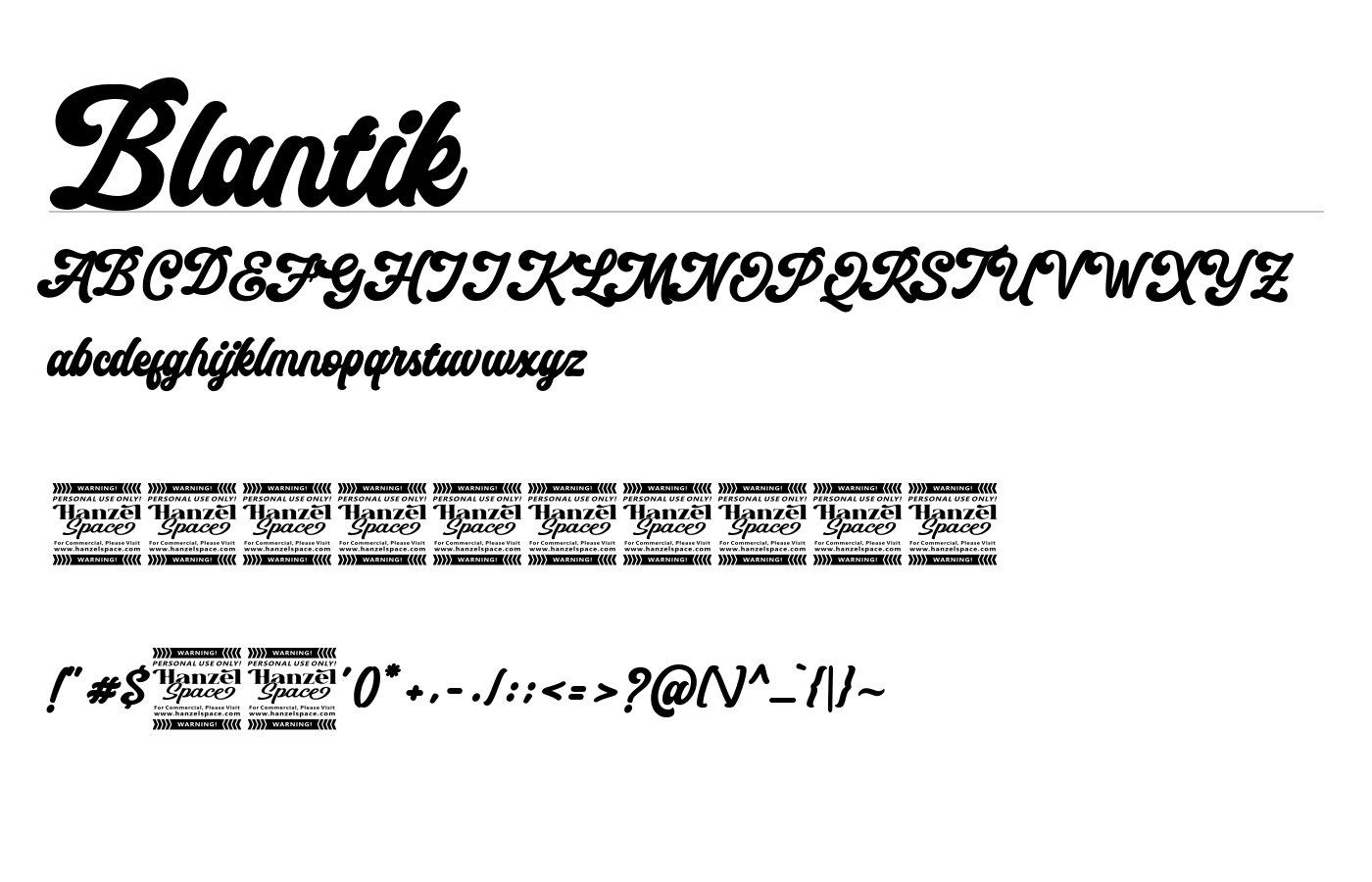
Blantik is a bold, playful script font with smooth, rounded strokes and a lively, handwritten feel. Its connected letterforms and flowing curves convey warmth and creativity, making it perfect for branding, logos, and invitations that seek a friendly yet stylish vibe. This font works best in headlines and display uses where personality and charm are key.
Blantik Font
About Blantik Font
| Font family | Blantik Font |
| Designer | Hanief Farandi |